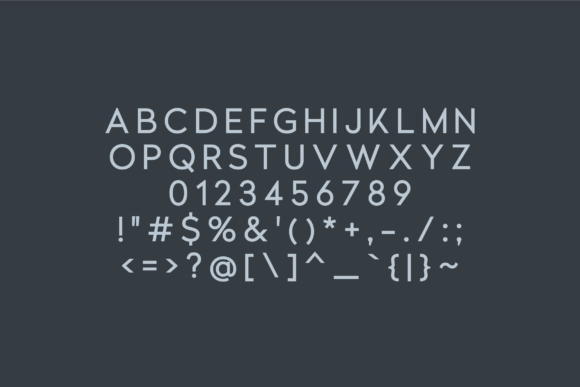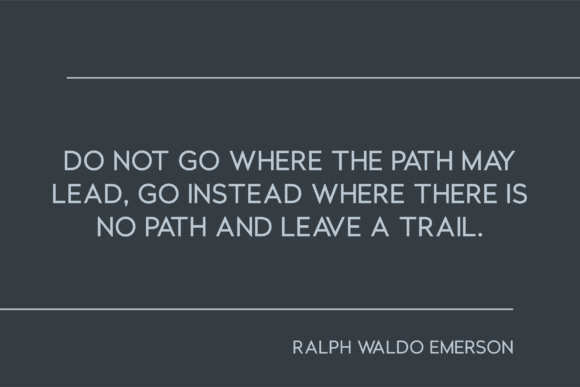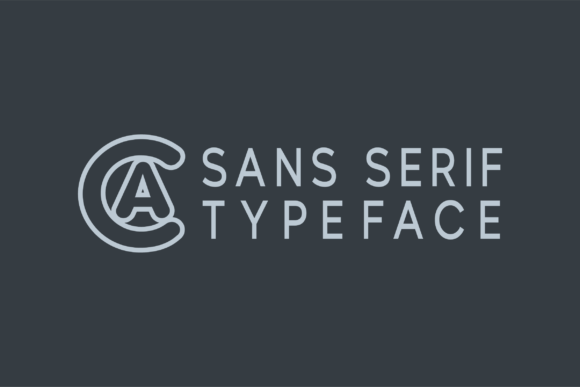
Introduction to Hyakinthos Font
Experience the timeless elegance of Hyakinthos, a sophisticated sans serif typeface.
Hyakinthos is notably modern yet exudes a classic charm, its design tactfully marrying tradition with contemporary styling It boasts a comprehensive suite of uppercase letters, numerals from 0 to 9, and an array of punctuation symbols.
Key Features of Hyakinthos Font
Why Choose Hyakinthos Font?
Hyakinthos Font offers exceptional quality and versatility, making it a valuable addition to your design toolkit. Whether you’re creating for personal projects or commercial use, Hyakinthos Font delivers professional results.